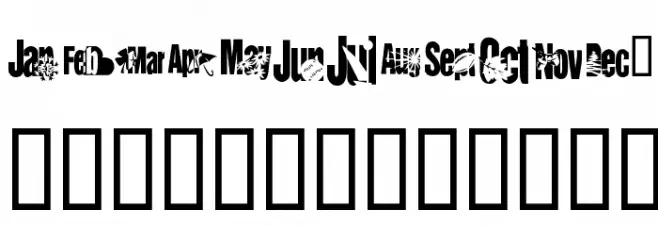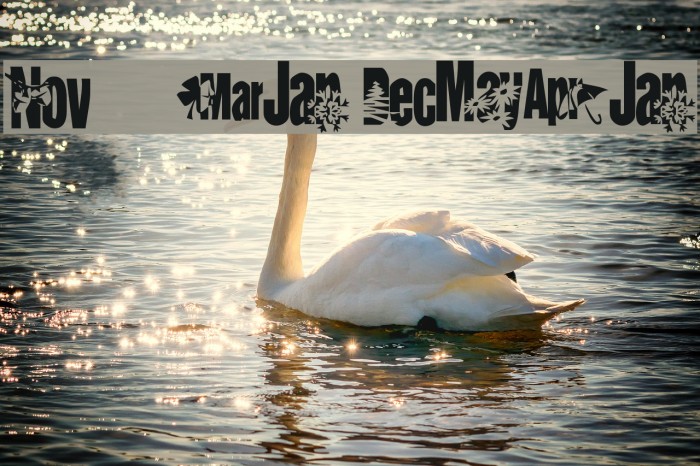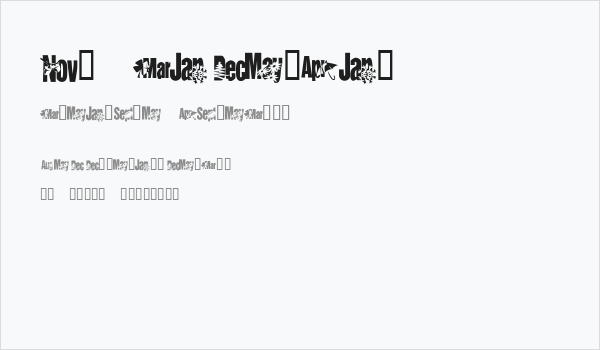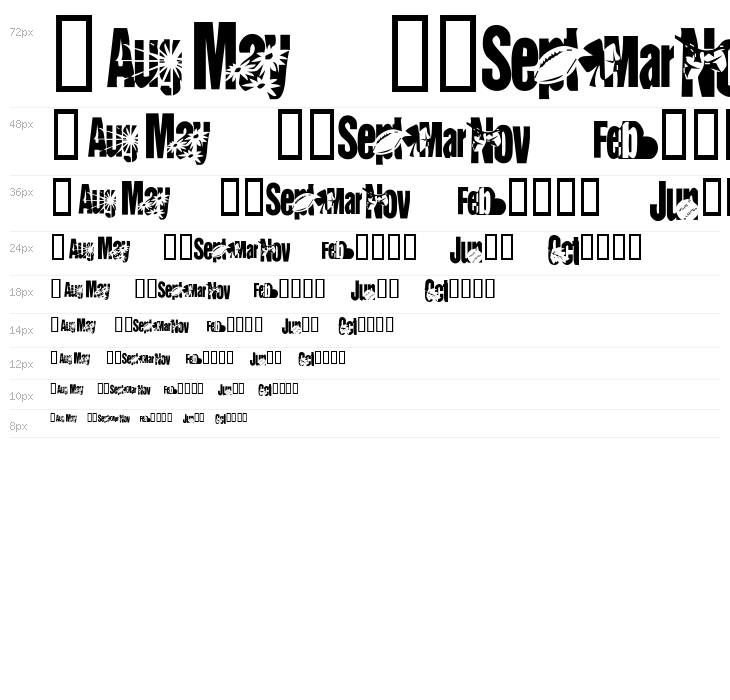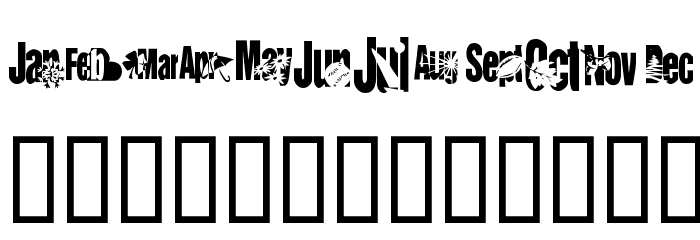
KR Calendar Font
KR Calendar Description
This font features a bold and decorative style with a unique twist. Each letter is adorned with intricate, seasonal-themed embellishments, making it visually striking and thematic. The uppercase letters are particularly eye-catching, with each month represented in a stylized manner that incorporates elements like snowflakes, flowers, and leaves. The font is designed to capture attention and convey a sense of time and seasonality, making it ideal for projects that require a thematic or seasonal touch. The characters are bold and have a strong presence, ensuring they stand out in any design.
| Proposed Projects | Ideal for calendar designs, seasonal event posters, holiday cards, and thematic branding projects. |